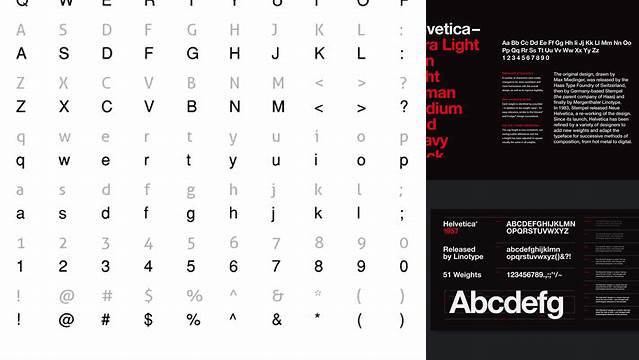
1. Understanding the Helvetica Normal Font: A Deep Dive
Alright, before we jump into the free download stuff, let's chat about what makes the Helvetica Normal font so darn special. This font isn't just any typeface; it's a legend! Created way back in 1957 by Max Miedinger, Helvetica was designed to be clean, neutral, and incredibly versatile. Its simplicity is its superpower. The characters are super legible, making it a go-to for everything from official documents to eye-catching advertisements. The Helvetica Normal font, as part of the larger Helvetica family, is the workhorse. Its regular weight is the foundation, providing a clear and readable text in a wide range of applications. Its clear, sans-serif design allows it to blend effortlessly with various design styles. The font's neutrality is a key reason for its widespread use. Helvetica doesn't scream for attention. Instead, it recedes into the background, allowing the content to shine. It's that invisible friend that makes everything look good without you even realizing it. Its consistent widths and perfect proportions make it a dream for designers. In an age of design fads, Helvetica has remained a constant, proving that timelessness never goes out of style. Its influence can be seen everywhere, from corporate logos to subway signage. Think about it β how many brands can you spot that use Helvetica? Quite a few, right? This popularity is a testament to its functionality and its enduring appeal. Understanding its history and design principles is crucial if you are looking to use Helvetica Normal in a project. Its legacy continues, and it is important to understand this typeface's impact. Its presence ensures that it will remain a design staple for a long time.